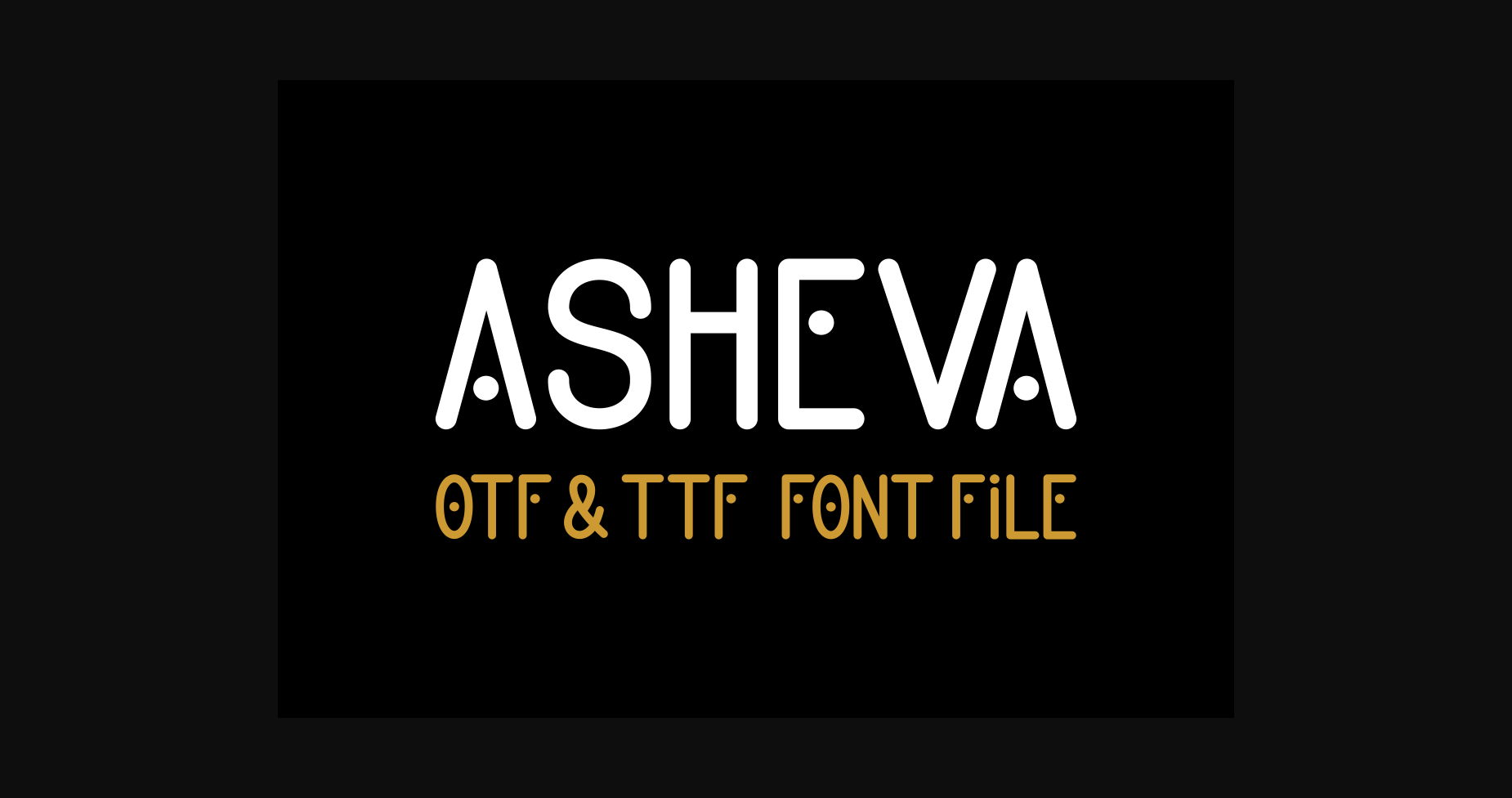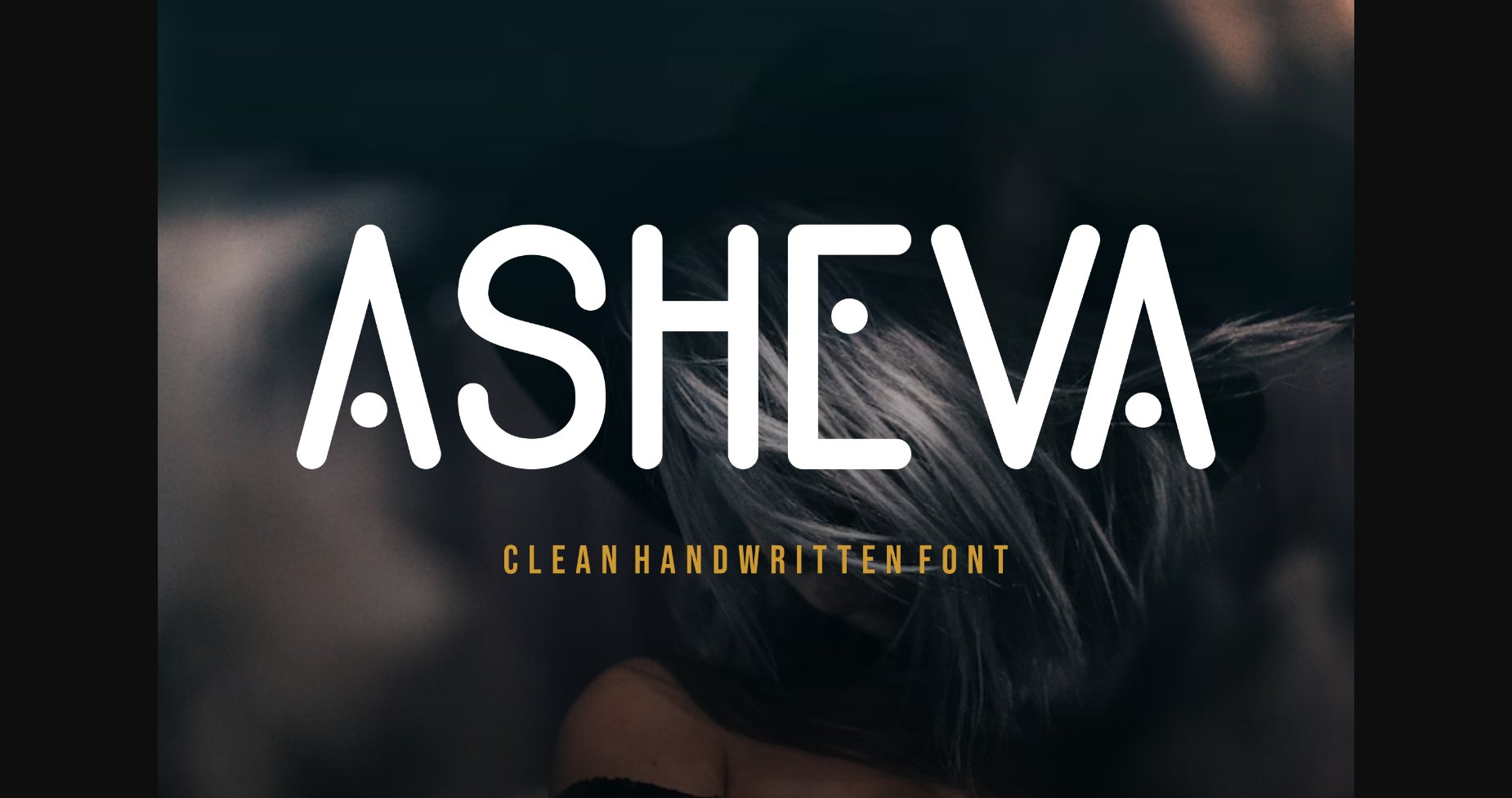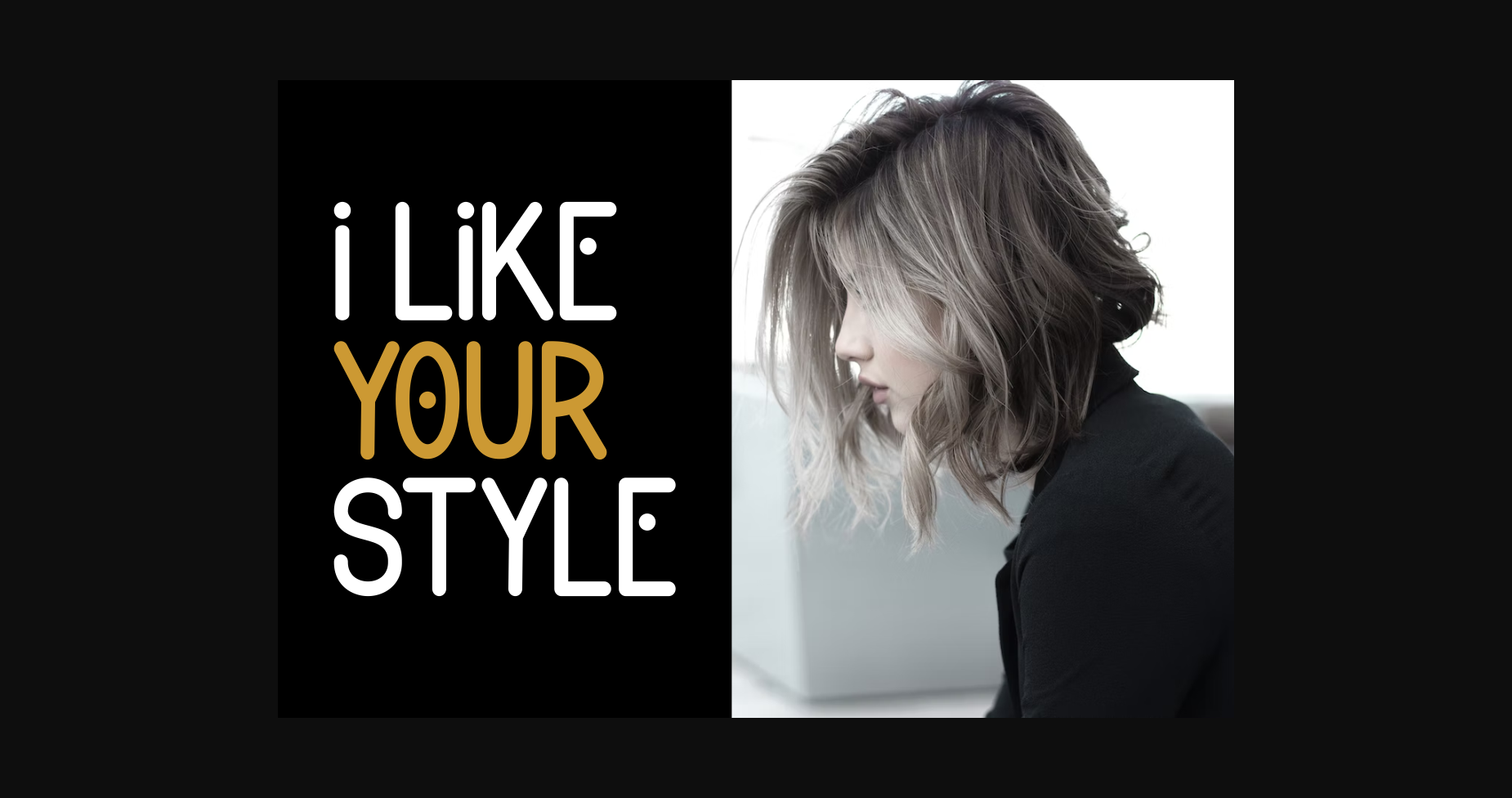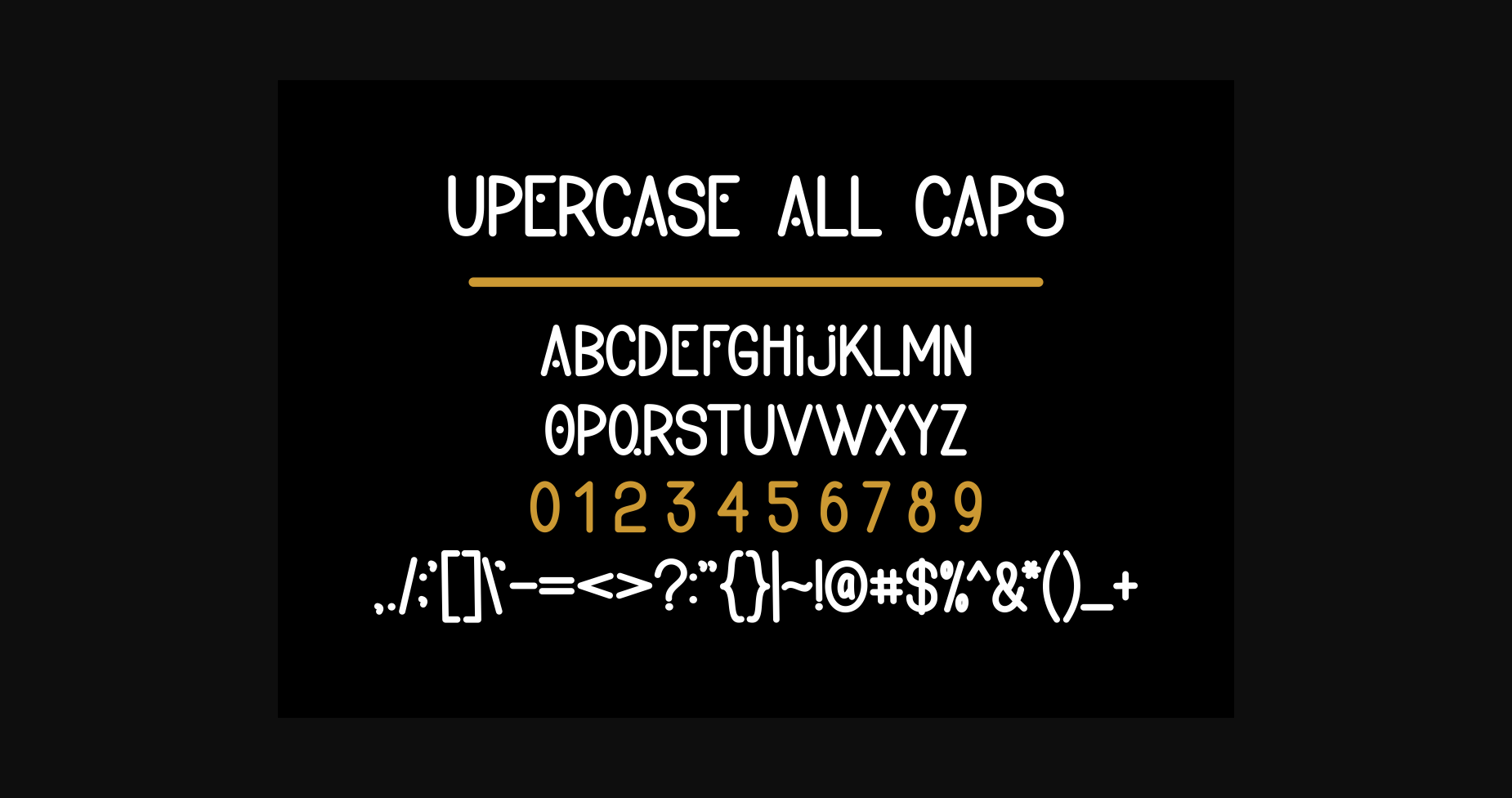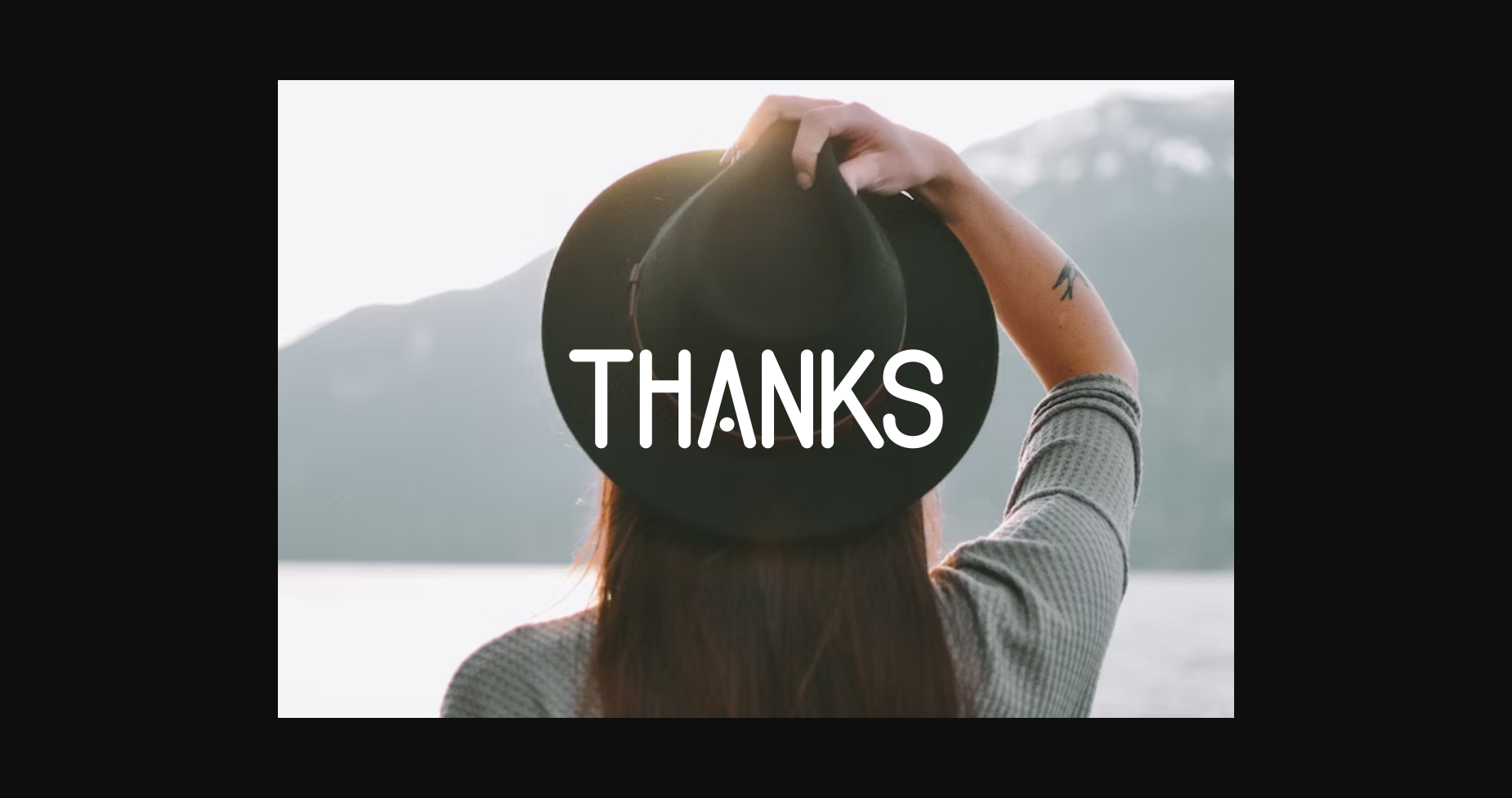
Asheva Font
About Asheva Font
**Asheva Font** – Modern Font is a bold and authentic display font. The font is suitable for any branding project like logo, t-shirt printing, esports, and many more. outstanding in a wide range of contexts.